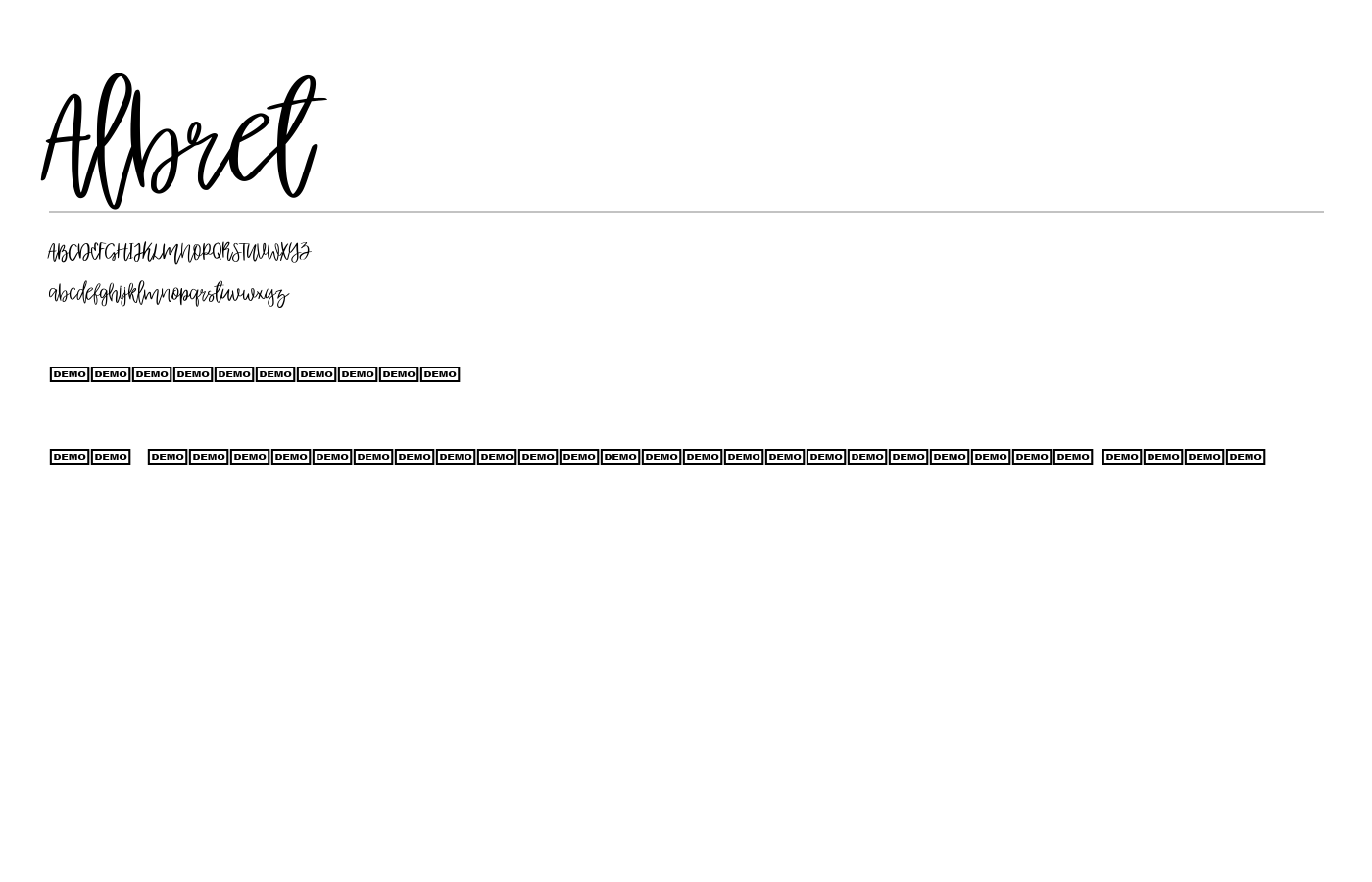
Albret is a stylish, hand-drawn script font with a modern and elegant feel, featuring tall, flowing letterforms and a natural, casual stroke that adds warmth and personality. Its light weight and airy spacing make it ideal for creative branding, invitations, and headlines where a friendly yet sophisticated touch is desired. This font works beautifully in fashion, lifestyle, and artistic projects seeking a personal, handwritten look.
Albret Font
About Albret Font
| Font family | Albret Font |
| Designer | Hleb Zhyhunou |